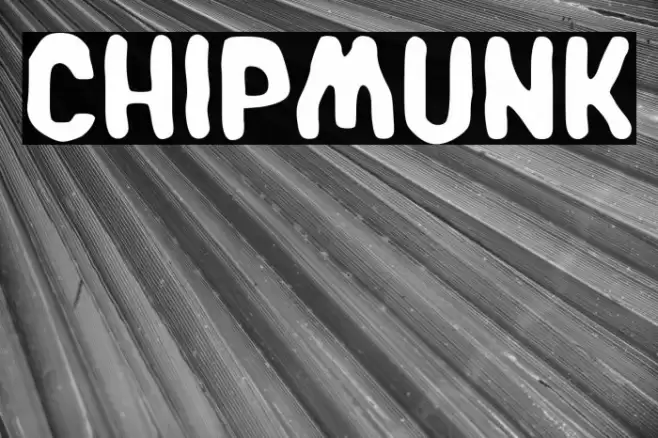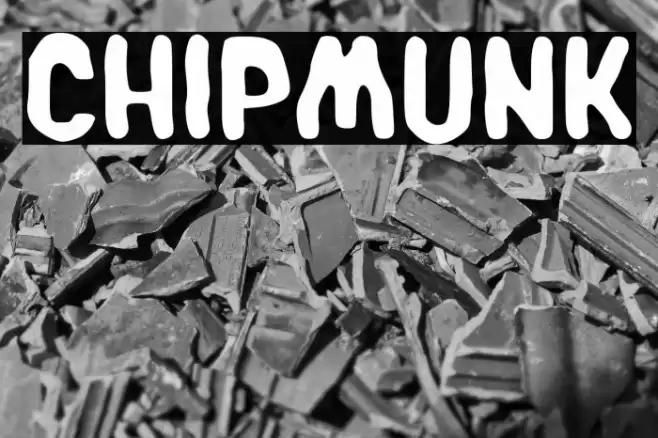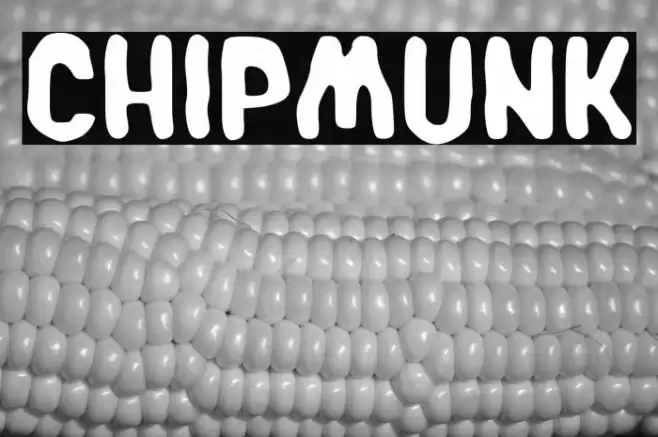
Chipmunk Font
Chipmunk Description
This playful and bold font features a chunky, rounded design that exudes a sense of fun and whimsy. The letters are thick and have a slightly irregular shape, giving them a hand-drawn appearance. The font maintains a consistent weight throughout, with smooth curves and a friendly, approachable style. The numbers and special characters follow the same design principles, ensuring a cohesive look across all elements. Its unique style makes it stand out, perfect for projects that require a touch of creativity and personality.
A playful, chunky font with a hand-drawn, whimsical style from Uncategorized fonts.
- Proposed Projects: Ideal for children's books, playful branding, posters, and creative projects that require a fun and engaging typeface.
- Overall Style: Playful, Whimsical